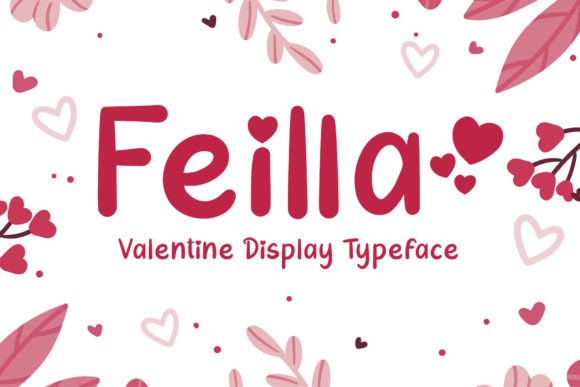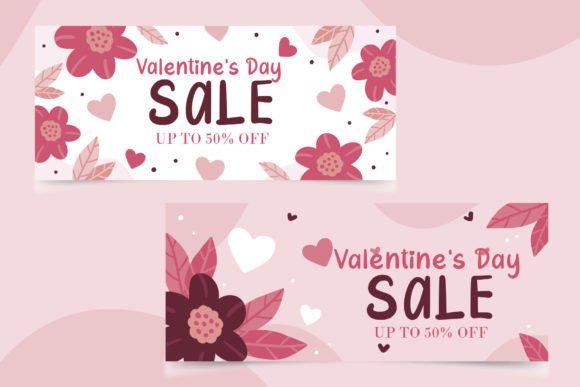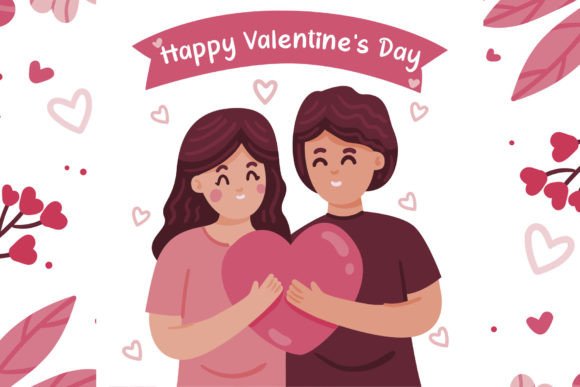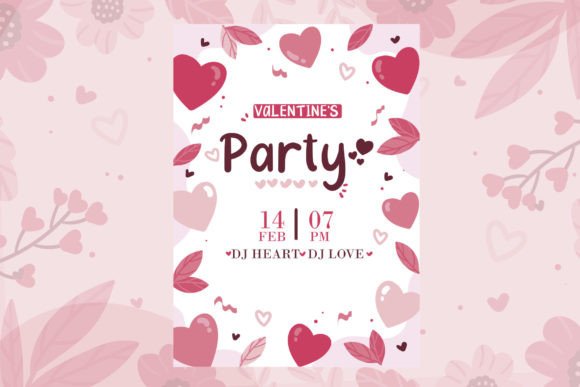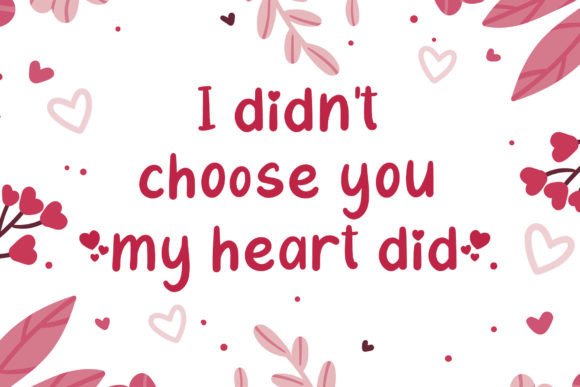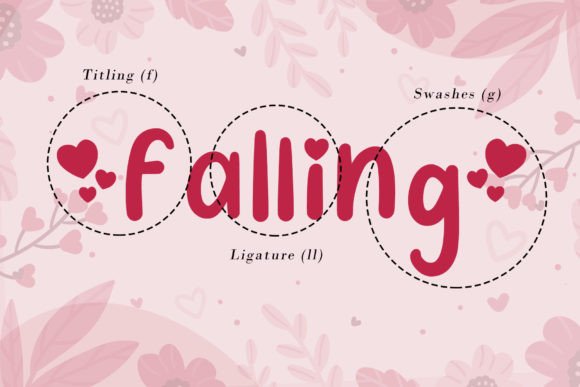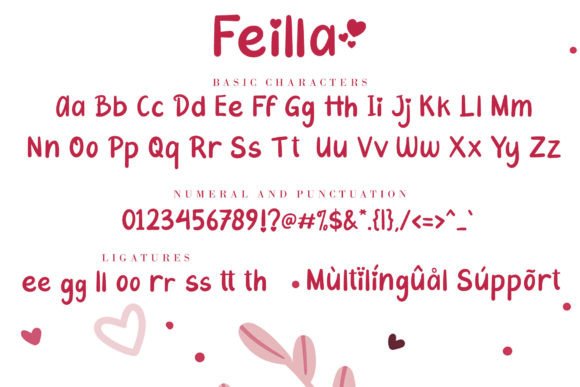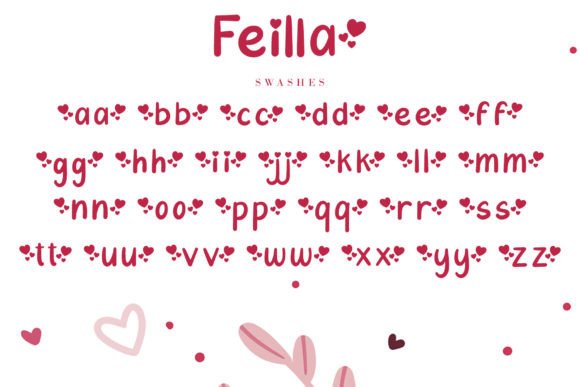
Feilla Font
About Feilla Font
Feilla font is a charming and cute handwritten typeface designed especially for romantic and Valentine-themed projects. Its lovely, flowing characters are adorned with elegant ornaments that bring a sweet and heartfelt touch to your creative work. If you want to create designs that feel warm, inviting, and full of love, Feilla is the perfect choice to help you express those emotions beautifully.
Lovely Valentine’s Theme
The Feilla font truly shines when used in romantic contexts. Its playful yet graceful strokes evoke feelings of affection, tenderness, and joy. The font’s delicate ornaments, such as swashes and flourishes, add a decorative flair that enhances Valentine’s Day cards, love letters, wedding invitations, and other special projects focused on love and connection. The design’s lighthearted style pairs wonderfully with bright, warm colors—especially pinks and reds—to amplify the romantic vibe.
Versatile Romantic Applications
Feilla font’s versatility makes it ideal for a broad range of romantic-themed design uses, including:
• Valentine’s Day cards: Make your heartfelt messages pop with this charming handwritten font
• Wedding invitations: Add an elegant and personal touch to invitations and save-the-date cards
• Greeting cards: Perfect for anniversaries, engagements, and other love celebrations
• Branding: Use Feilla to create beautiful logos or packaging for boutique and handmade gift shops
• Social media graphics: Create eye-catching romantic posts that connect with your audience
• Crafts and DIY projects: Bring warmth and charm to scrapbooking, stickers, and handmade goods
PUA Encoded for Full Creative Control
Feilla font comes fully PUA encoded, which means you gain easy access to all glyphs, swashes, and alternate characters. This feature allows you to customize your text with beautiful flourishes and decorative details without needing special software. It opens up endless creative possibilities to make your designs unique and personalized.
Why Choose Feilla Font?
Choosing Feilla font adds a distinct romantic charm and personality to your design toolkit. Its cute handwritten style paired with decorative ornaments makes it stand out from generic script fonts. Whether you’re a professional designer or a DIY enthusiast, Feilla will help you craft heartfelt and memorable projects that truly speak from the heart.
Tips for Using Feilla Font
To get the best results with Feilla:
• Use it for headlines, titles, and logos to maximize impact
• Pair it with simple sans serif fonts for readable body text
• Experiment with colors like pink, red, or gold to highlight the Valentine’s theme
• Utilize the PUA encoded glyphs to add custom swashes and flourishes
In summary, Feilla font is a sweet and elegant Valentine’s handwritten font designed to bring love and joy to your creative work. With its lovely ornaments and PUA encoded features, it offers both beauty and versatility for romantic cards, wedding designs, branding, and more. Add Feilla font to your collection today and start creating enchanting designs that capture the spirit of love.